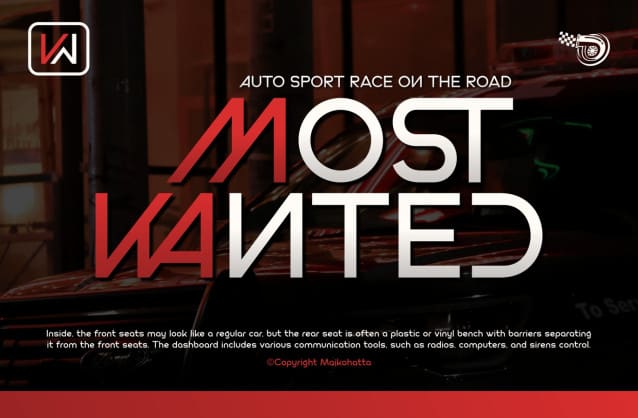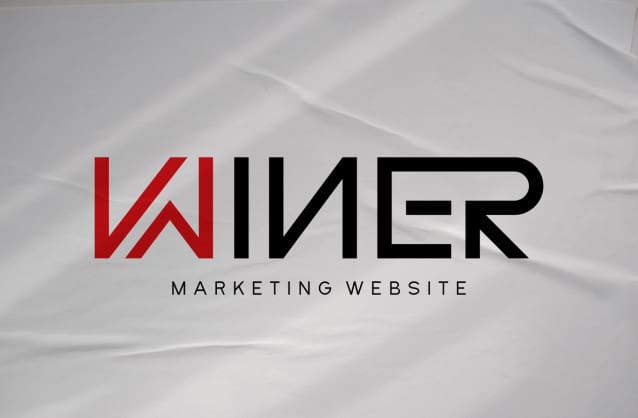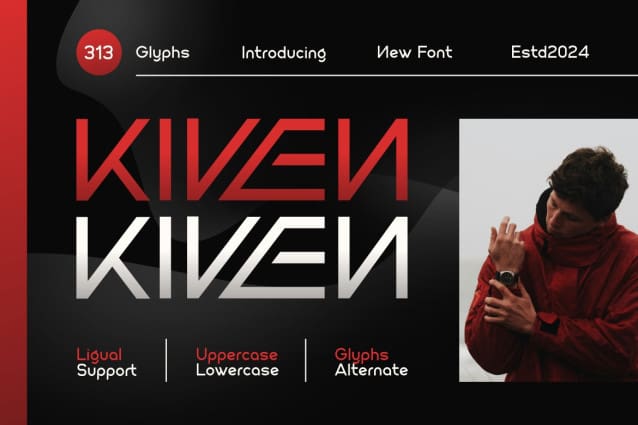
Kiven Font
Kiven Font – Modern Sans Serif Display. This font is a very flexible choice and can be used in a variety of design contexts. Its ability to provide a clean, professional and contemporary look, its simplicity and visual appeal make it an ideal font for use in the world of graphic design and modern typography.